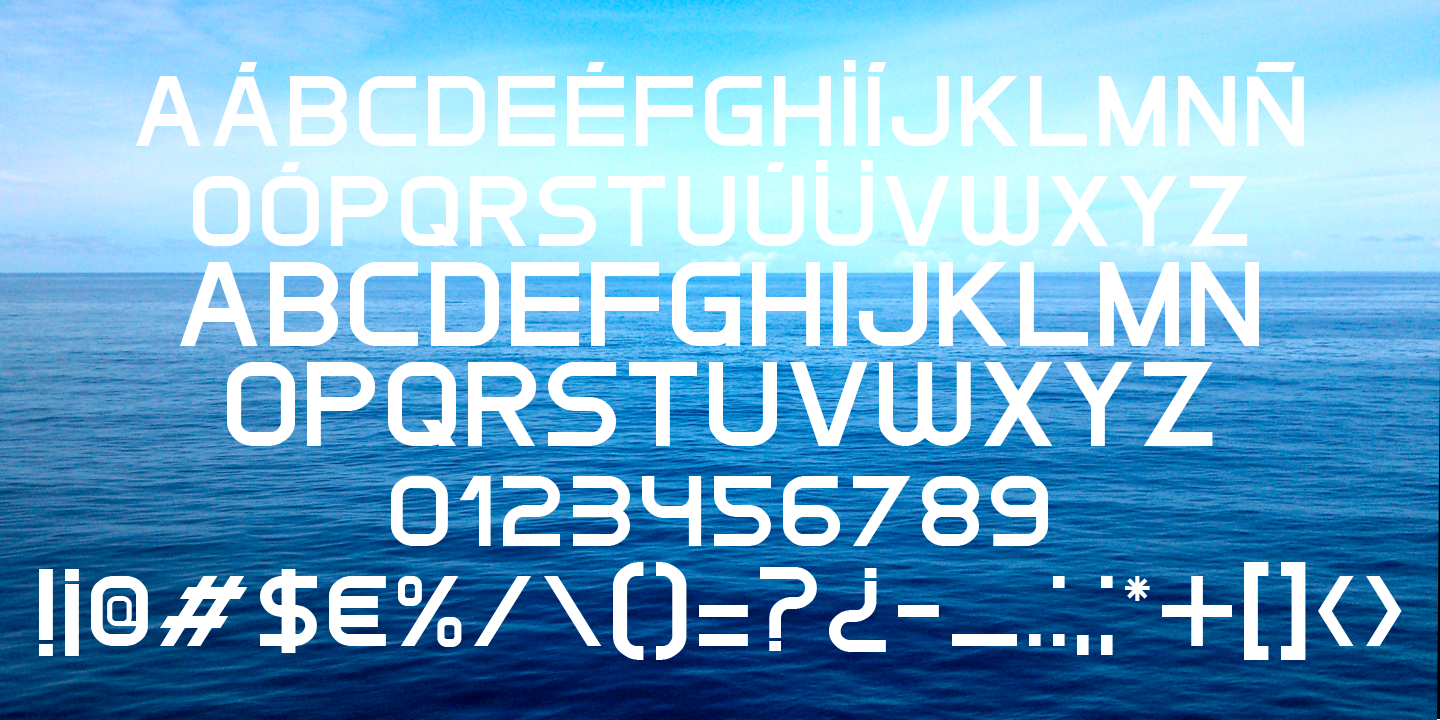
Cerena Font: A Strong and Readable Sans Serif for Designers and Crafters
In the world of typography, fonts play a crucial role in conveying messages, expressing emotions, and creating visual identities. For designers and crafters, finding the right font can make all the difference in their projects. One font that has gained attention in recent times is Cerena, a strong and easy-to-read sans serif font. In this article, we’ll dive into the features, benefits, and uses of Cerena Font, exploring why it’s a great choice for various design projects.
What is Cerena Font?
Cerena is a sans serif font, characterized by its clean and minimalist design. The font features a strong and sturdy structure, making it highly legible even at small sizes. Cerena’s simplicity and clarity make it an excellent choice for body text, headings, and titles. Its neutral and uncluttered design allows it to blend seamlessly with various design styles, from modern and minimalist to bold and playful.
Key Features of Cerena Font
- Strong and sturdy structure: Cerena’s robust design makes it perfect for creating visually appealing text that stands out.
- Easy to read: The font’s clear and simple design ensures that text remains legible, even at small sizes or from a distance.
- Sans serif: Cerena’s minimalist approach makes it an excellent choice for modern and contemporary designs.
- Neutral and versatile: The font’s neutral design allows it to blend with various styles, making it suitable for a wide range of projects.
Benefits of Using Cerena Font
Cerena Font offers several benefits for designers and crafters, including:
- Improved readability: Cerena’s clear design ensures that text is easy to read, making it perfect for body text, instructions, and other content where legibility is crucial.
- Enhanced visual appeal: The font’s strong and sturdy structure adds a touch of sophistication and professionalism to any design.
- Flexibility: Cerena’s neutral design makes it suitable for various design styles, from modern and minimalist to bold and playful.
- Time-saving: With Cerena, designers can quickly create visually appealing text without spending hours on font selection and styling.
Uses of Cerena Font
Cerena Font is an excellent choice for various design projects, including:
- Print design: Cerena is perfect for creating brochures, flyers, posters, and other print materials where readability and visual appeal are essential.
- Digital design: The font is suitable for digital platforms, including websites, social media, and mobile apps, where clear and legible text is crucial.
- Crafting and DIY projects: Cerena can add a professional touch to handmade projects, such as signs, labels, and cards.
- Branding and identity: The font’s strong and sturdy structure makes it an excellent choice for creating logos, business cards, and other brand materials.
Cerena Font is a versatile and practical choice for designers and crafters looking for a strong and easy-to-read sans serif font. Its clear design, neutral style, and robust structure make it suitable for various design projects, from print and digital design to crafting and DIY projects. With Cerena, designers can create visually appealing text that communicates effectively and adds a touch of professionalism to any project.
Whether you’re a seasoned designer or a crafty DIY enthusiast, Cerena Font is definitely worth exploring. Its simplicity, clarity, and versatility make it an excellent addition to any design toolkit.